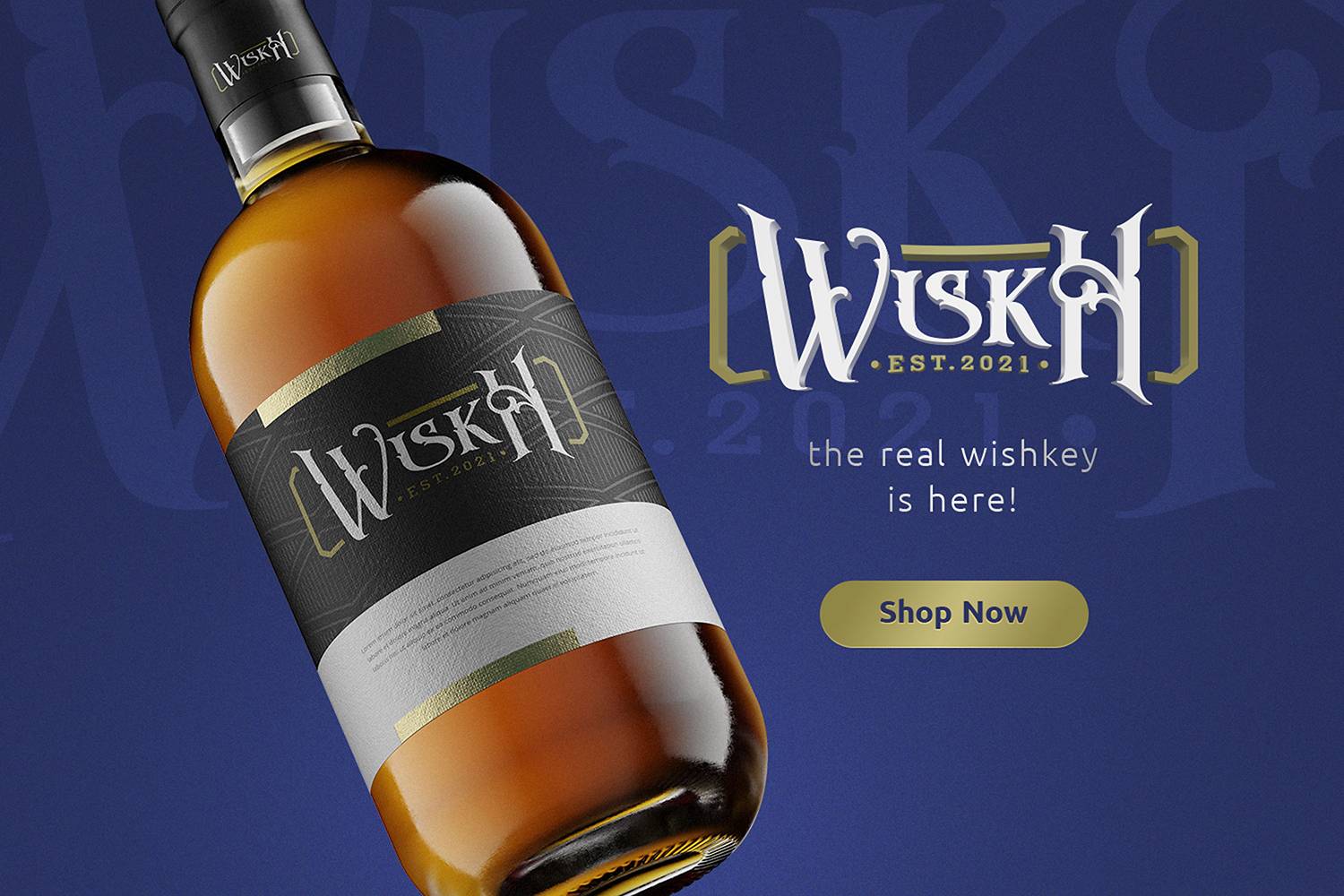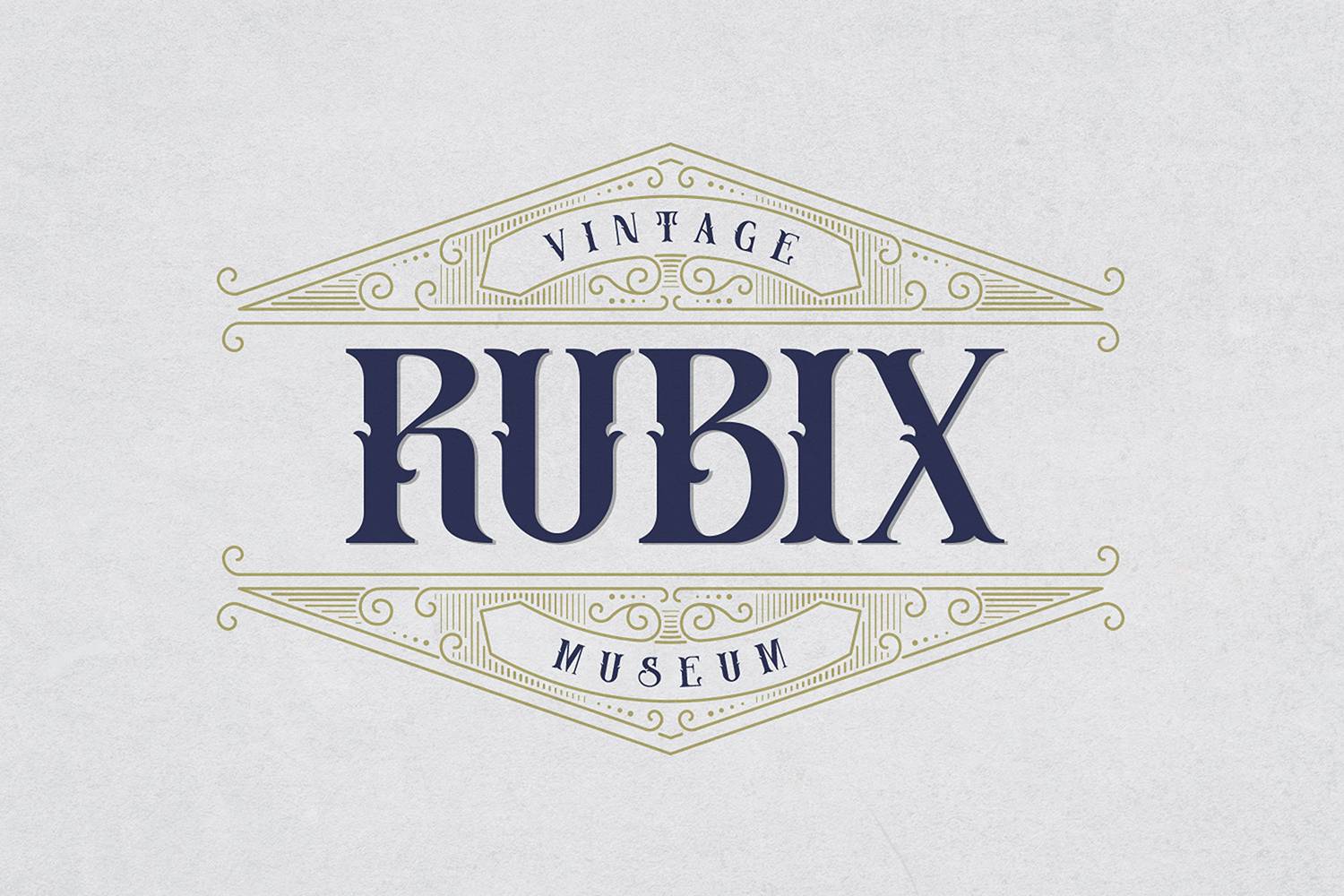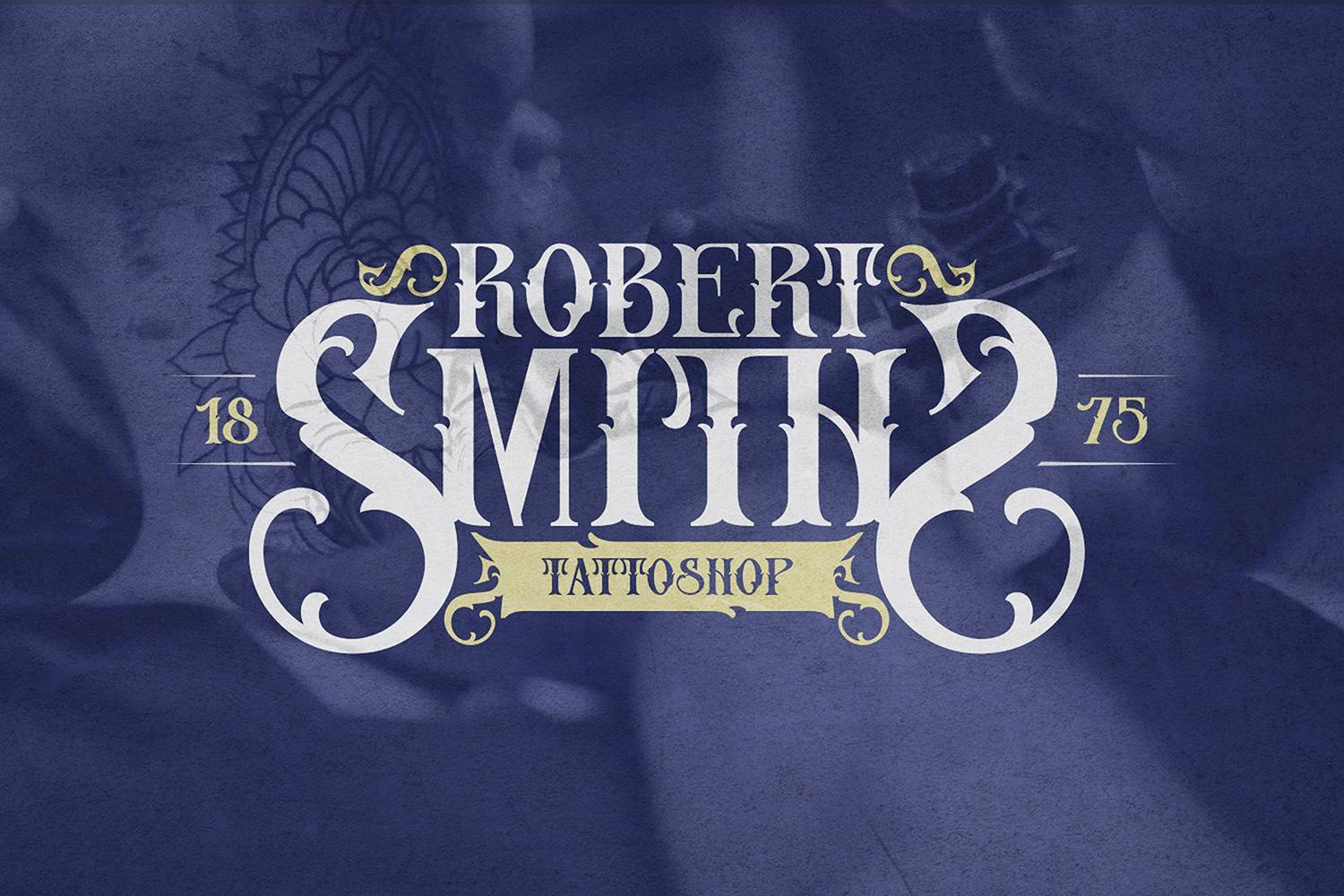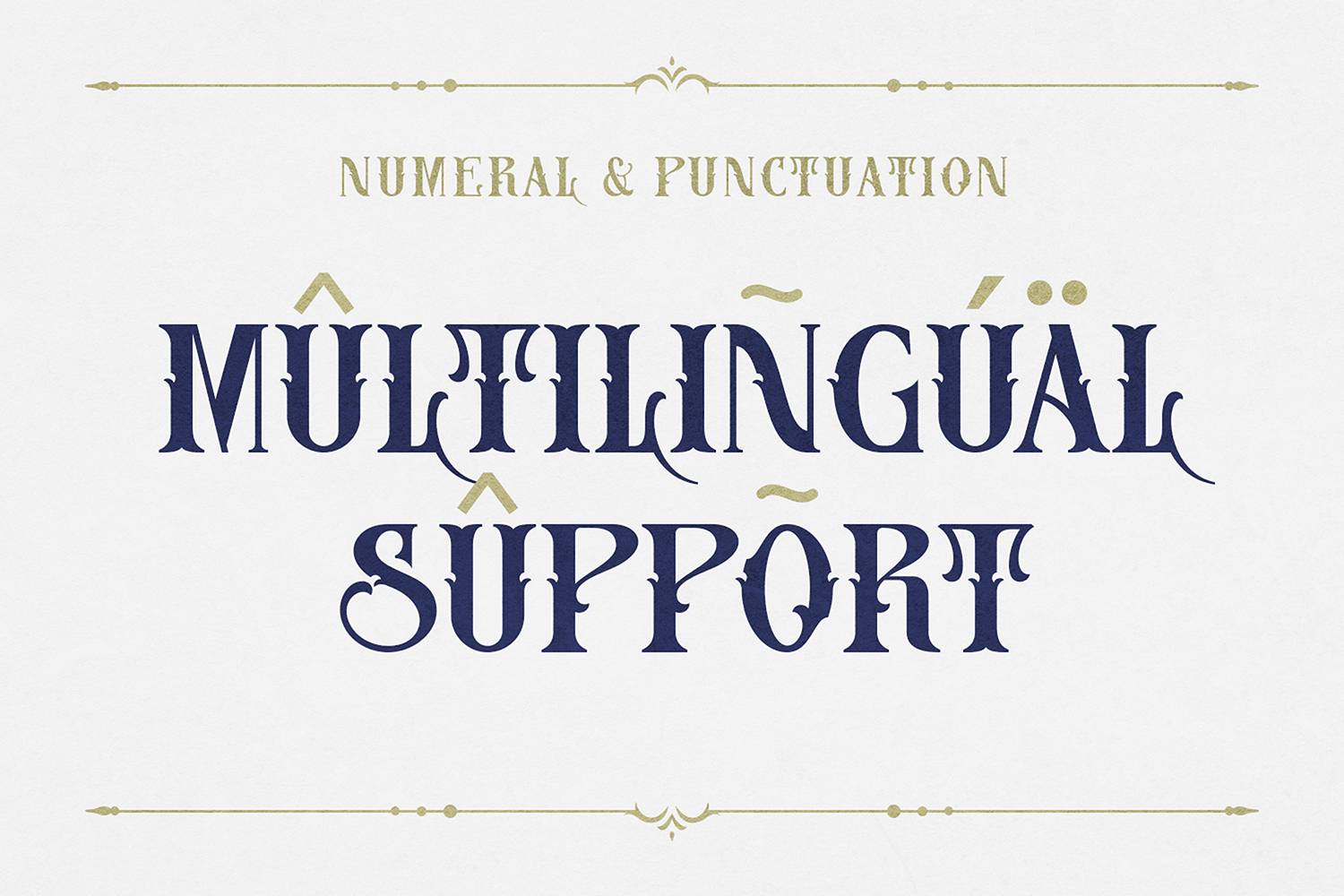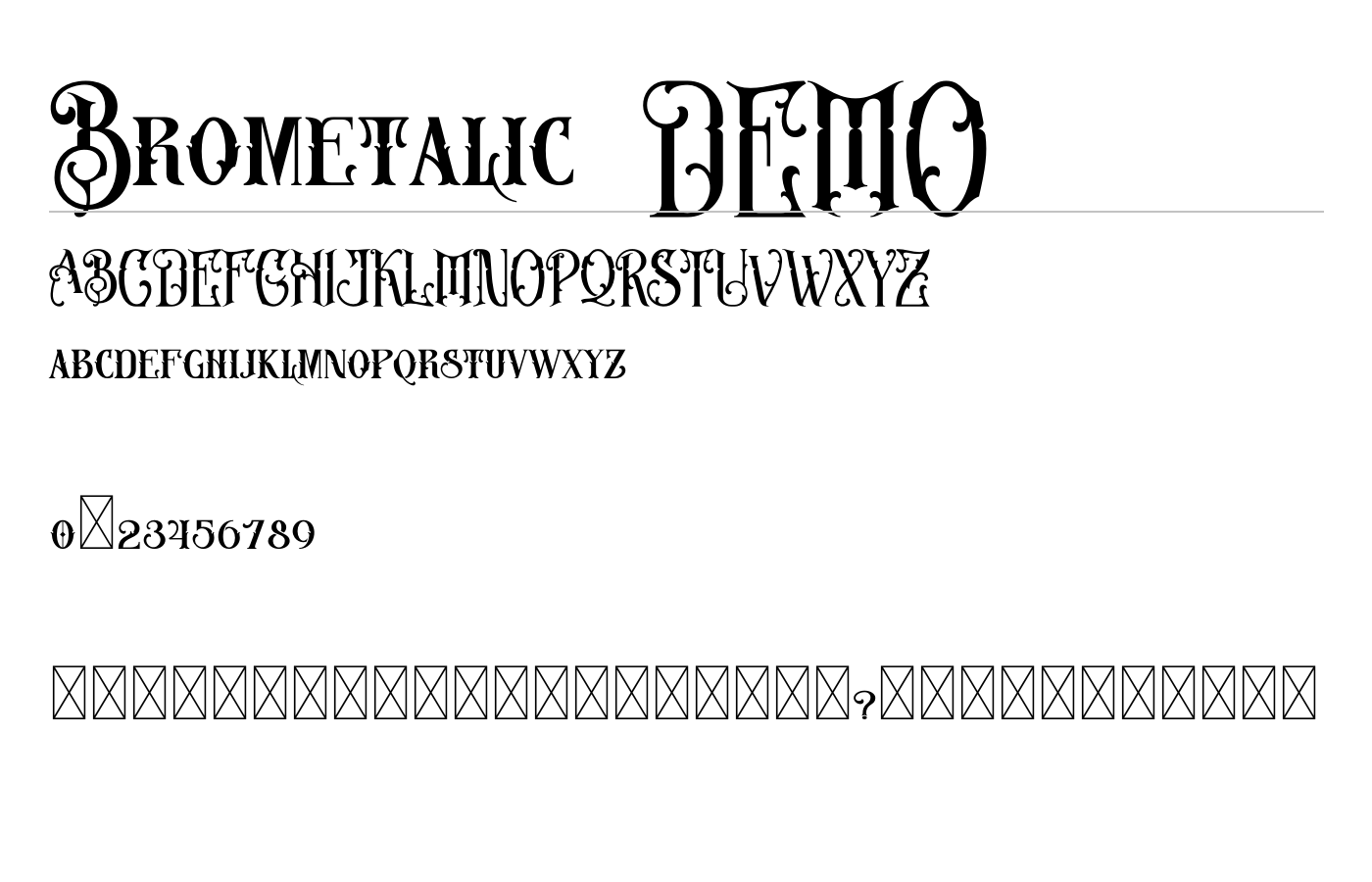
Brometalic is a highly decorative serif font with a vintage, gothic flair, featuring intricate curls and sharp, dramatic serifs that create a bold and ornate appearance. Its condensed width and high contrast between thick and thin strokes give it a strong presence, making it ideal for eye-catching headlines, posters, and branding that seeks a historic or theatrical vibe. This font is perfect for designs that want to communicate elegance and a touch of old-world charm while standing out with its unique, elaborate letterforms.
Brometalic Font
About Brometalic Font